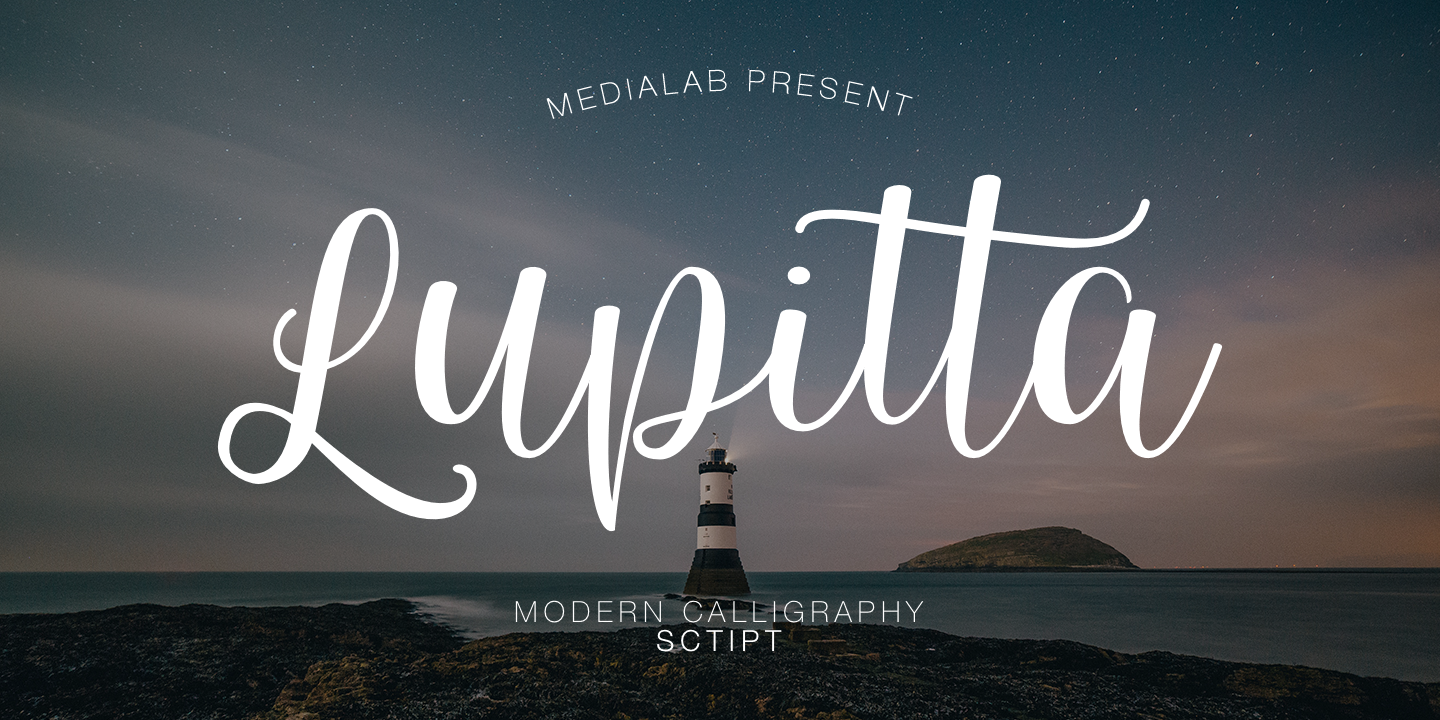
The Lupitta Font is perfect for various design applications including feminine branding projects, beauty salon graphics, fashion boutique logos, romantic wedding invitations, cosmetic packaging designs, lifestyle blog headers, elegant social media posts, and luxury product marketing. This graceful typeface works exceptionally well for brands targeting sophisticated audiences and projects requiring refined elegance.
What makes Lupitta Font exciting is its sophisticated and feminine character that instantly conveys elegance, grace, and timeless beauty. The font features delicate letterforms with refined curves and elegant details that evoke feelings of luxury and sophistication. Its stylish appearance and charming personality make it perfect for brands that want to create emotional connections with discerning customers and establish premium market positioning.
The Lupitta Font family includes multiple weights and styles, offering designers flexibility for diverse elegant applications. The family typically consists of regular, bold, light, and script variations, along with decorative swashes and ornamental elements, providing comprehensive coverage for projects that need both functionality and sophisticated charm.
Whether you're working on luxury branding, fashion marketing, or premium lifestyle campaigns, Lupitta Font Free Download delivers the refined quality and visual elegance that modern designers seek. The font's sophisticated design combined with its excellent legibility makes it an essential choice for creating memorable visual communications that exude class, femininity, and timeless appeal.